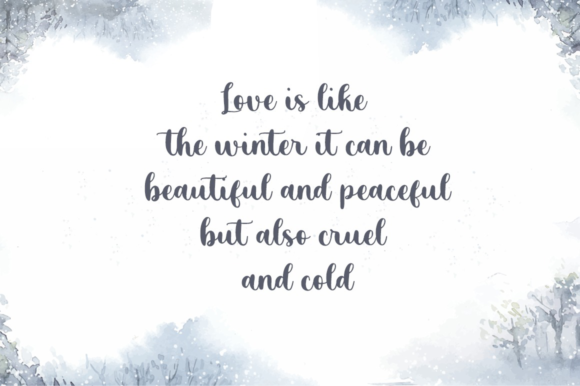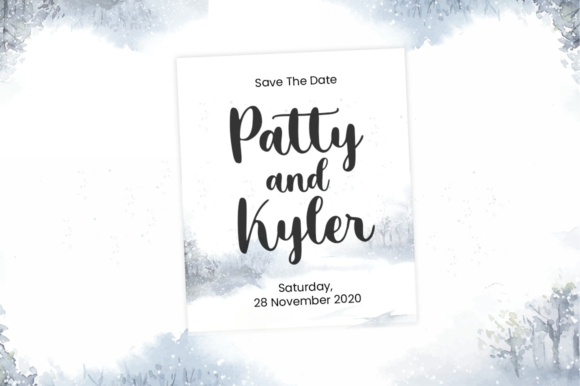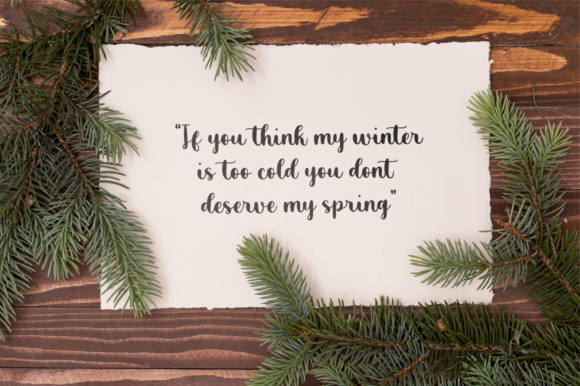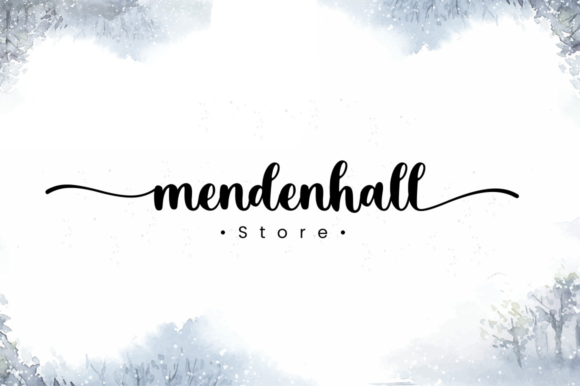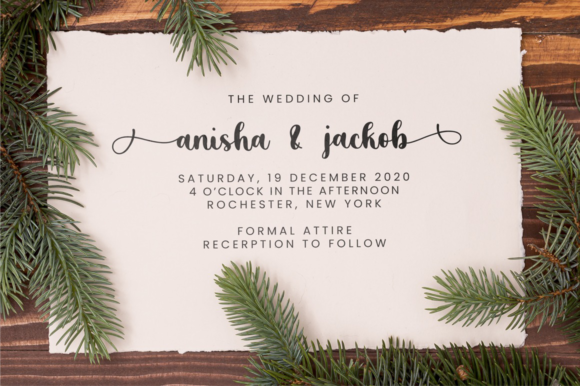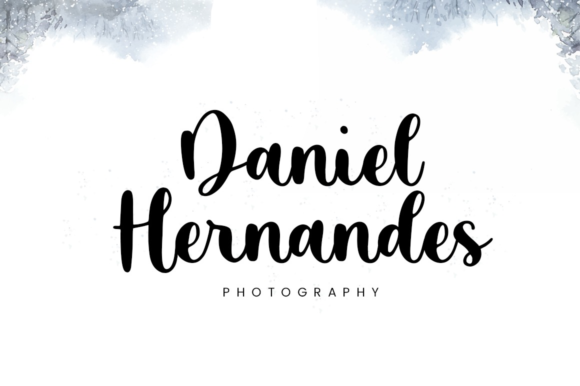
Cold Outside Font: Elevate Your Designs with a Stylish and Delicate Touch
In the world of design, typography plays a crucial role in conveying the tone and aesthetic of a project. Whether you’re a seasoned designer or a crafty DIY enthusiast, finding the perfect font can make all the difference. If you’re on the hunt for a stylish and delicate font that exudes a clean, trendy, and smooth vibe, look no further than Cold Outside Font.
What is Cold Outside Font?
Cold Outside Font is a modern and elegant typeface that has been gaining popularity among designers and crafters alike. Its unique blend of sophistication and playfulness makes it an excellent choice for a wide range of design projects, from branding and advertising to crafting and scrapbooking.
Key Features of Cold Outside Font
- Clean and Smooth Design: Cold Outside Font boasts a sleek and refined design that is perfect for creating visually appealing text-based elements.
- Trendy and Modern Aesthetic: This font’s contemporary vibe makes it an excellent choice for designers who want to add a touch of modernity to their projects.
- Delicate and Elegant: Cold Outside Font’s delicate lines and curves add a touch of sophistication to any design, making it perfect for projects that require a level of refinement.
- Versatile and Adaptable: This font can be used for a wide range of design projects, from digital designs to print materials.
Why Choose Cold Outside Font?
So, why should you choose Cold Outside Font for your next design project? Here are just a few compelling reasons:
- Add a Touch of Sophistication: With Cold Outside Font, you can add a level of elegance and refinement to your designs that will set them apart from the rest.
- Stand Out from the Crowd: This font’s unique design ensures that your text-based elements will grab attention and leave a lasting impression on your audience.
- Easy to Read and Understand: Despite its delicate nature, Cold Outside Font is surprisingly legible, making it perfect for use in body text and other applications where readability is key.
Using Cold Outside Font in Your Designs
So, how can you incorporate Cold Outside Font into your designs? Here are a few ideas to get you started:
- Branding and Advertising: Use Cold Outside Font to create eye-catching logos, taglines, and ad copy that will help your brand stand out.
- Crafting and Scrapbooking: Add a touch of elegance to your scrapbook pages, cards, and other craft projects with this beautiful font.
- Digital Designs: Use Cold Outside Font to create stunning text-based elements for your website, social media, or digital marketing campaigns.
Tips and Tricks for Working with Cold Outside Font
To get the most out of Cold Outside Font, here are a few tips and tricks to keep in mind:
- Experiment with Different Sizes and Colors: Don’t be afraid to try out different font sizes and colors to see what works best for your design.
- Pair with Other Fonts: Cold Outside Font pairs well with a variety of other fonts, so don’t be afraid to experiment with different combinations.
- Use it Sparingly: While Cold Outside Font is beautiful, it can be overwhelming if overused. Use it sparingly to create visual interest and emphasis.
In conclusion, Cold Outside Font is a stylish and delicate typeface that is sure to elevate your designs to the next level. With its clean, trendy, and smooth vibe, this font is perfect for designers and crafters who want to add a touch of sophistication and elegance to their projects. So why wait? Give Cold Outside Font a try today and see the difference it can make!